Are you looking for diverse and captivating font options that resonate with the timeless elegance of Caslon?
Typography enthusiasts and designers alike understand the importance of selecting the right fonts to convey a message effectively.
Caslon style fonts are known for their unique traits: a capital A with a scooped-out apex, a capital C with two full serifs, and swashed lowercase v and w in the italics.
These characteristics make Caslon a revered choice in typography, symbolizing both dependability and timeless sophistication.
In this exploration, we delve into the world of typography to present you with an array of 15+ fonts that bear a striking resemblance to Caslon, one of the most beloved and enduring typefaces in history.
Whether you’re seeking alternatives to Caslon for your design projects or searching for the perfect font pairings to elevate your creative endeavors, we’ve got you covered.
Discover these fonts, each with its own unique characteristics, and unlock a world of possibilities to enhance your typographic designs.
10 Best Fonts Similar To Caslon – Overview
- Lagency
- Maximum
- Alchemist
- Modern
- Modern Serif
- Luxury Serif
- Morjuis
- Hedonia
- Roadblock
12+ Best Fonts Similar to Caslon
1. Lagency
Lagencystands at the forefront as a remarkable serif font, boasting an extensive selection of 10 unique styles, from sleek condensed to generously wide, allowing for unmatched versatility.
What truly sets Lagency apart and makes us fall in love with it is its ability to effortlessly adapt to a wide range of creative projects, be it in the realms of print, web design, or logo creation.
Its bold and distinctive character variations ensure that it adds depth and sophistication to any typographic endeavor, making it a cherished choice for both designers and readers alike.
2. Maximum
Following closely is Maximum, a font that has us captivated by its refined elegance.
Inspired by the principles of minimalist design, Maximum brings a touch of class to every project it graces.
From crafting visually striking templates and brochures to creating memorable logos and invitations, this font truly maximizes the impact of design, making it a favorite among those who appreciate understated sophistication.
3. Alchemist
Alchemisttakes typography to a level of artistry that we adore.
Its bold and distinctive glyphs add a touch of magic to every composition, making it an invaluable asset for creative endeavors.
4. Modern Refolle
Modern Refolle‘s allure lies in its ability to effortlessly harmonize contemporary elegance.
With a comprehensive character set that includes both uppercase and lowercase characters, numerals, and punctuation, available in both otf and ttf files, it strikes a balance that we admire.
The boldness of its design elements ensures that every character makes a statement, making it a must-have for designers who appreciate style and readability in equal measure.
5. Vergian
Vergianembodies modern serif excellence, and it’s this attribute that endears us to it.
The clean lines and exceptional legibility of this font are truly remarkable.
Whether it’s creating compelling headlines or ensuring content readability, Vergian does it all with an elegant boldness that makes it a standout choice for typographic enthusiasts.
6. Luxyna
Luxyna‘s appeal lies in its seamless fusion of luxury and modernity, making it universally appealing to a diverse audience.
What draws us in is its ability to perform exceptionally well in both web and print applications.
This font’s bold and stylish demeanor has the power to elevate any brand’s image to new levels of sophistication, and that’s precisely why we can’t help but adore it.
7. Morjuis
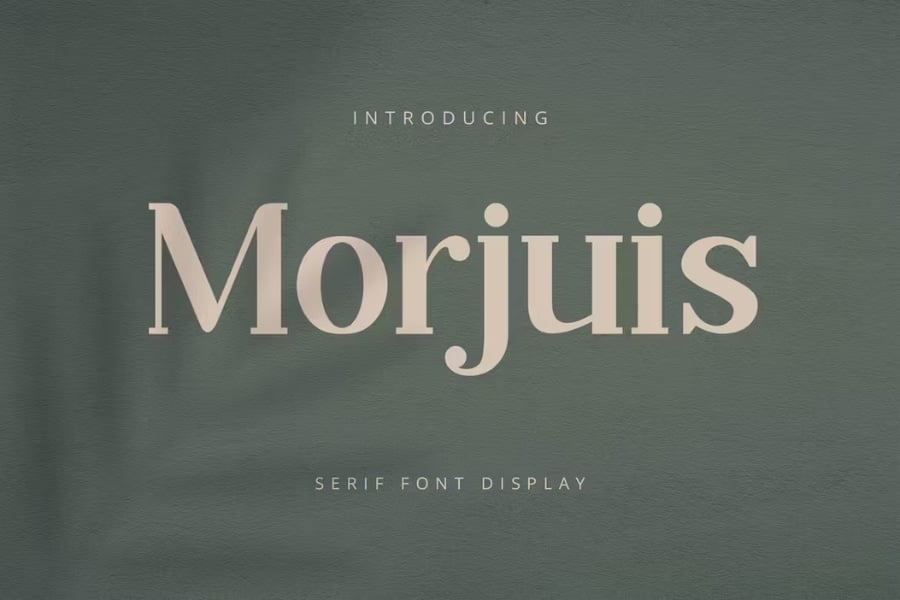
Now, allow us to introduce you to Morjuis, a font that captivates us with its multifaceted charm.
Offering an extensive character set, including uppercase and lowercase characters, this font’s bold strokes and impeccable detail capture our hearts.
With the versatility to grace anything from digital documents to printed materials, Murjuis has earned our admiration for its ability to make a statement in any context.
What fonts pair well with Caslon?
Caslon pairs beautifully with modern sans-serif fonts such as Helvetica, Futura, or Element. The combination of classic serif and clean sans serif creates a strong visual contrast, balancing tradition with modernity.
Why do designers still use Caslon today?
Designers continue to use Caslon because it bridges history and modern design needs. Its readability, elegance, and flexibility make it an enduring choice, whether for books, magazines, or digital branding.